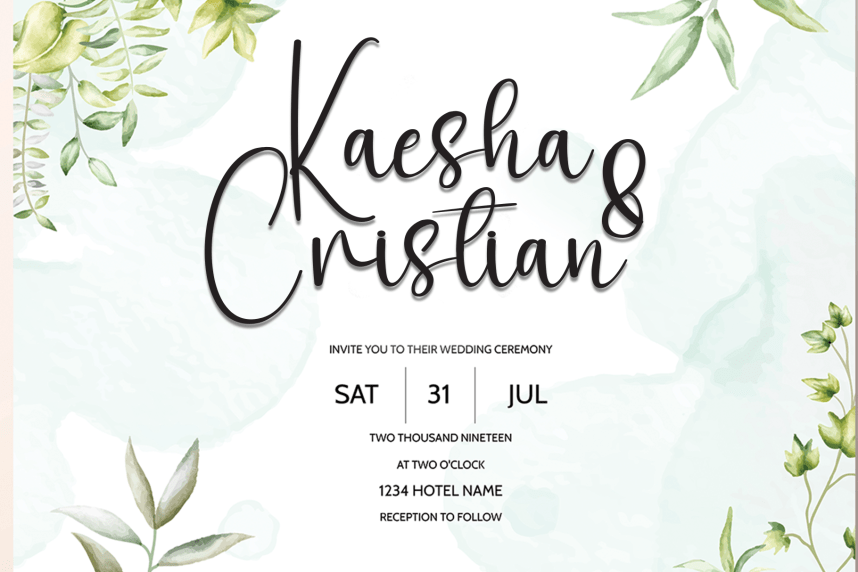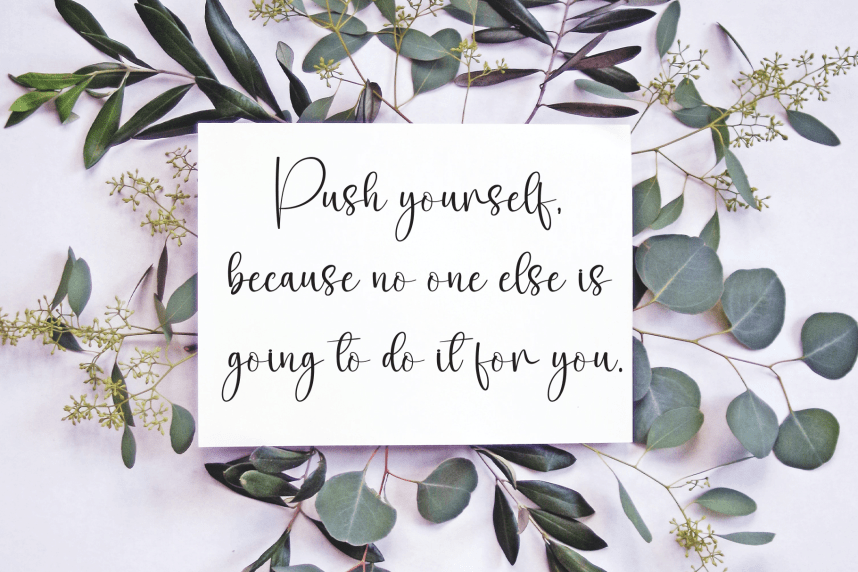
Baking – Natural Script Handwritten Font
Baking – Natural Script Handwritten Font, special creative products for you, our products will give you an extraordinary experience. the latest style letters are perfect for wall displays, wedding invitations, social media post logos, advertisements, product packaging, product designs, labels, photography, watermarks, invitations, stationery, and any project that requires taste handwriting.